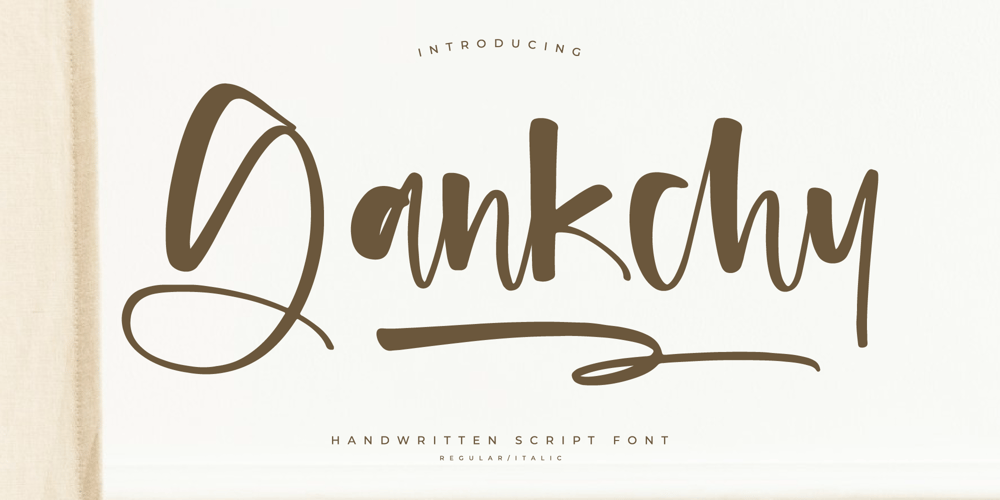
Gankchy Font Family was designed by Heru Utama Putra and published by Letterena Studios. Gankchy contains 2 styles and family package options. Gankchy is a stylish and neat handwritten script exuding modern elegance. Its sleek strokes and refined letterforms lend sophistication to various designs, from branding to invitations. With its balanced curves and versatile charm, Gankchy adds a touch of contemporary flair to any project, capturing attention effortlessly.